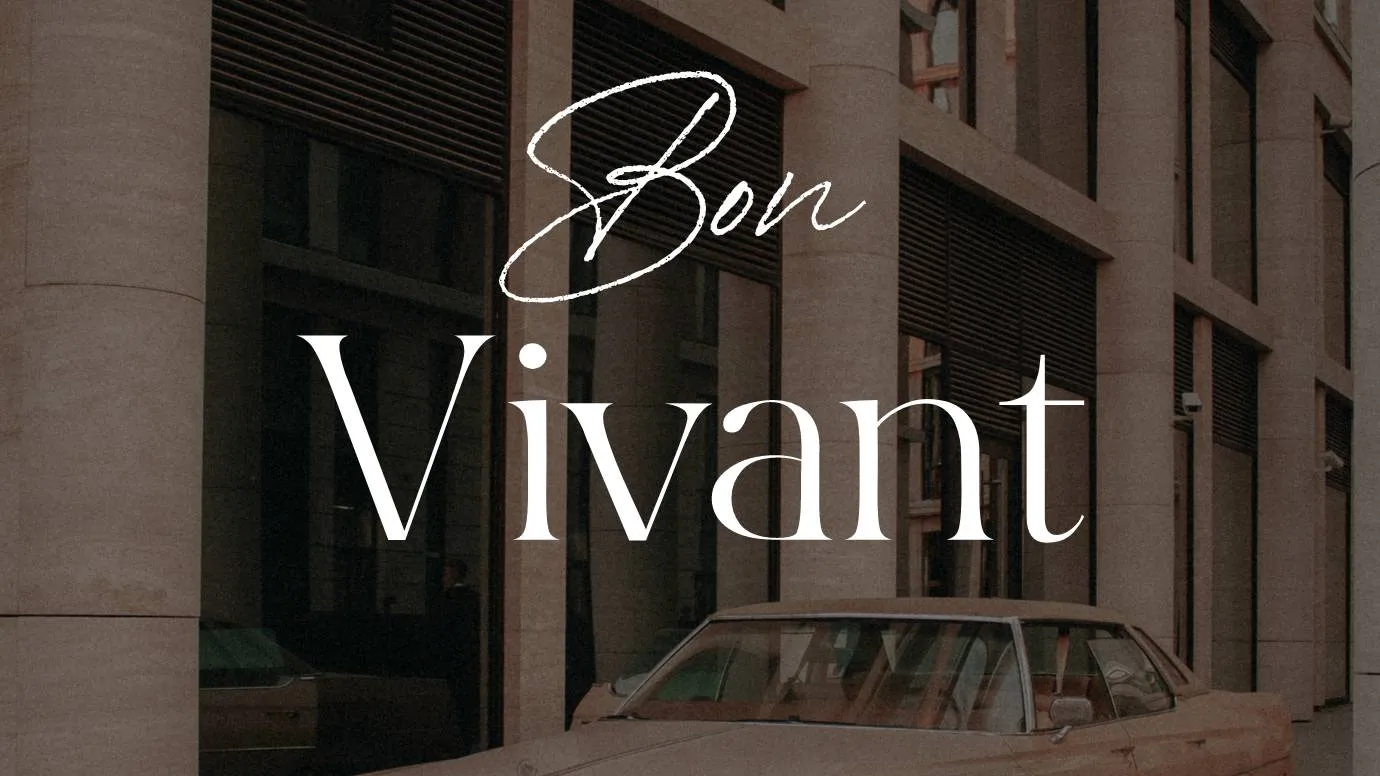
Bon Vivant Font Family is a modern serif typeface that has beautiful vintage characters. This outstanding typeface was created by Nicky Laatz. The regular style of this font is available in OTF file format.
It comes in three weights and styles. This font has an online generator tool facility that is available to use on any online website. It is great for making pairing with marlowe serif font and creating a number of unique designs. It was released for the first time in 2019.